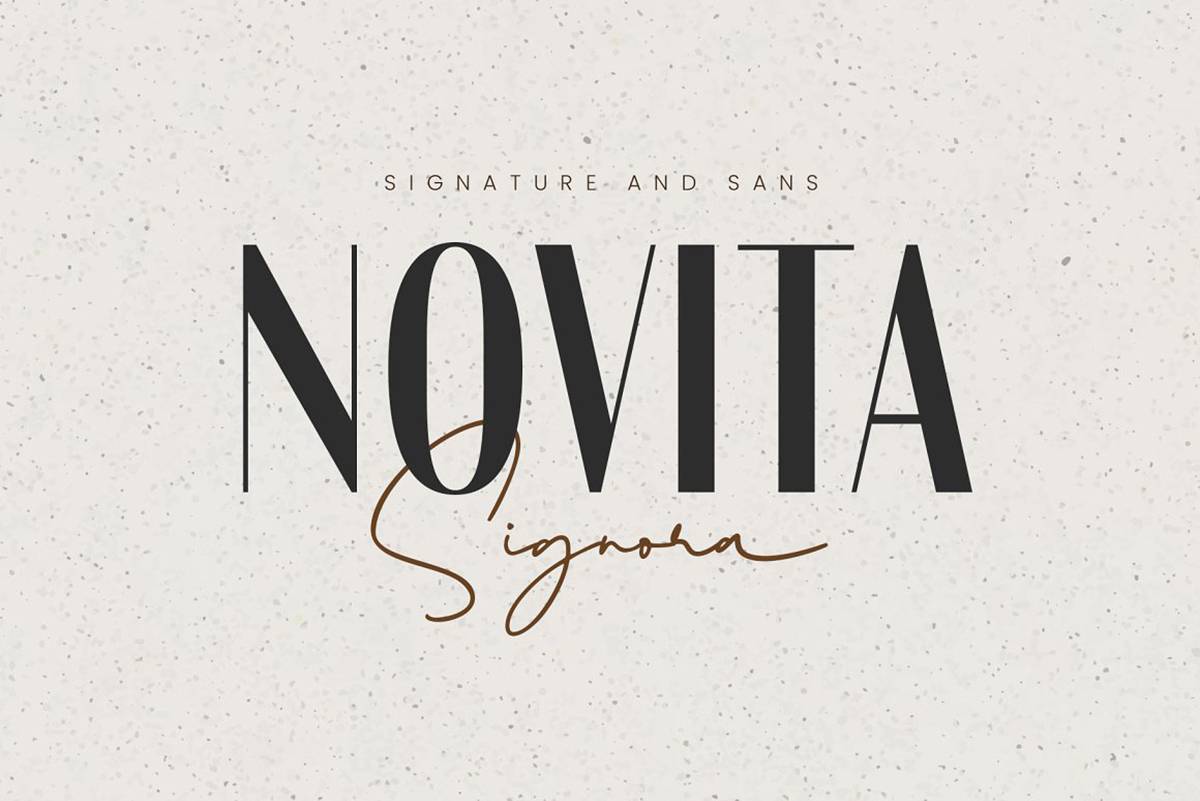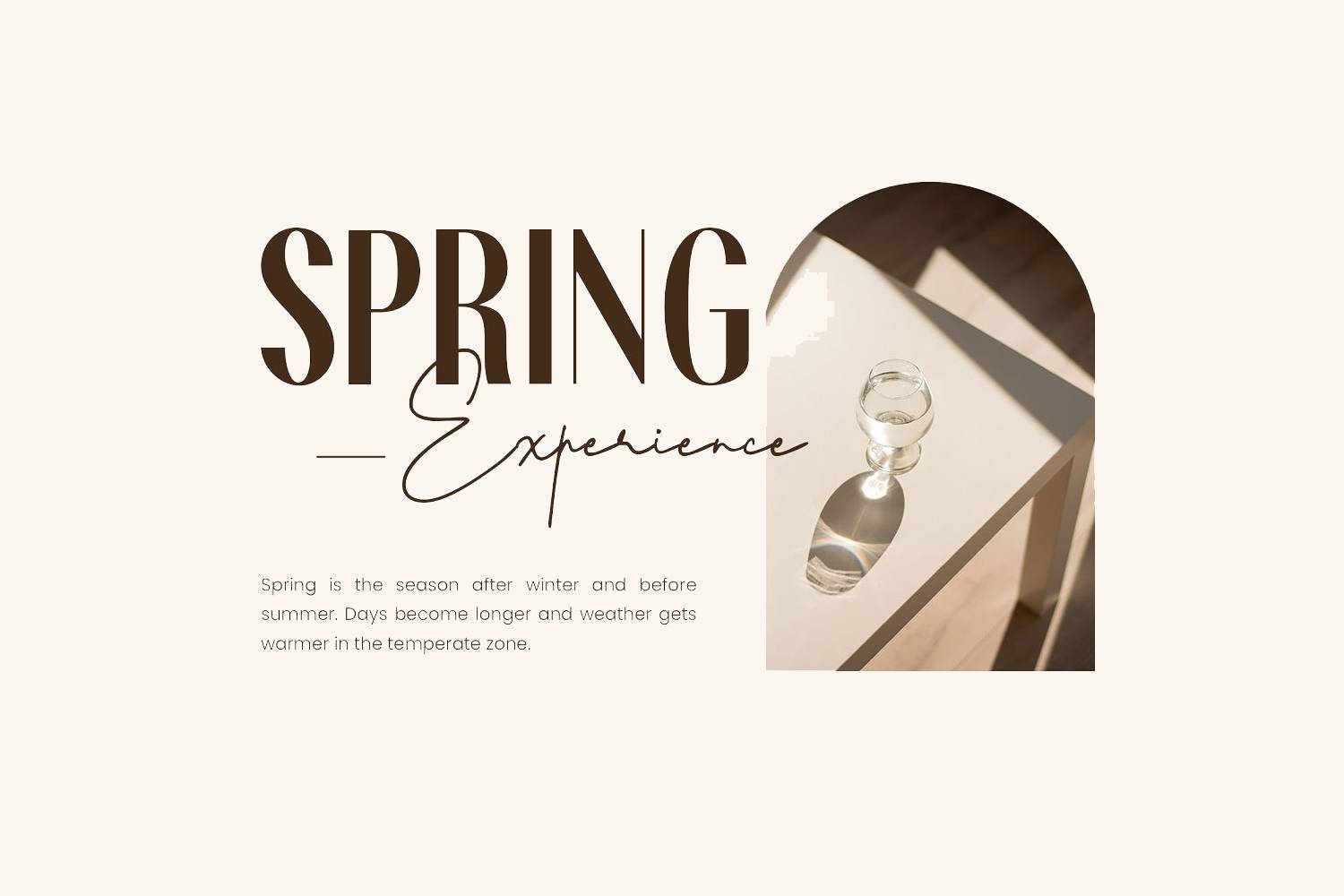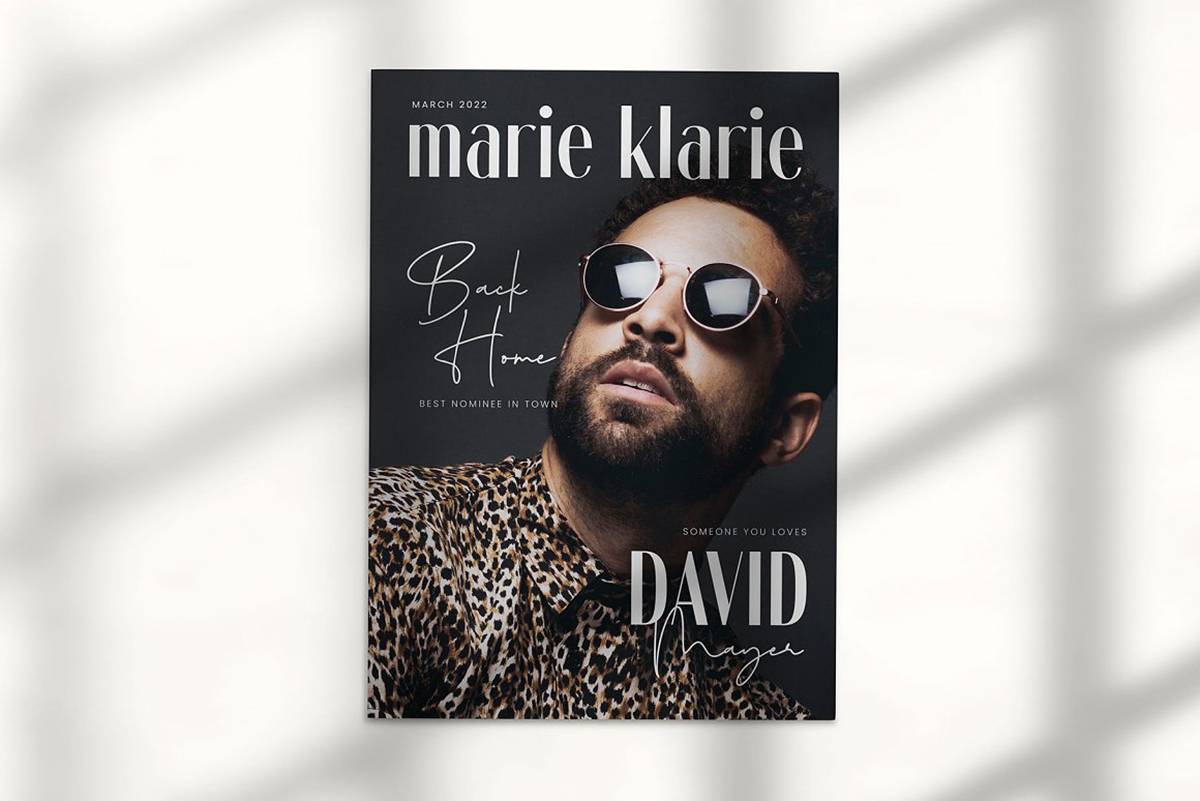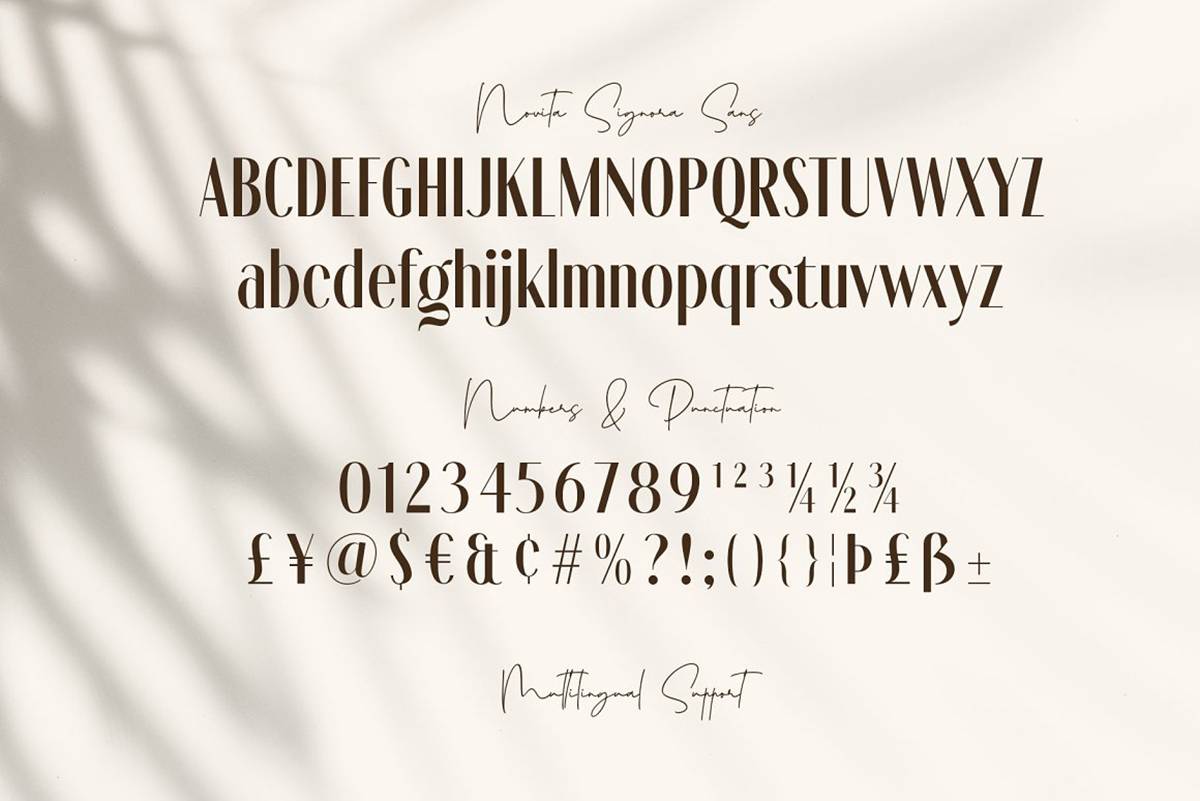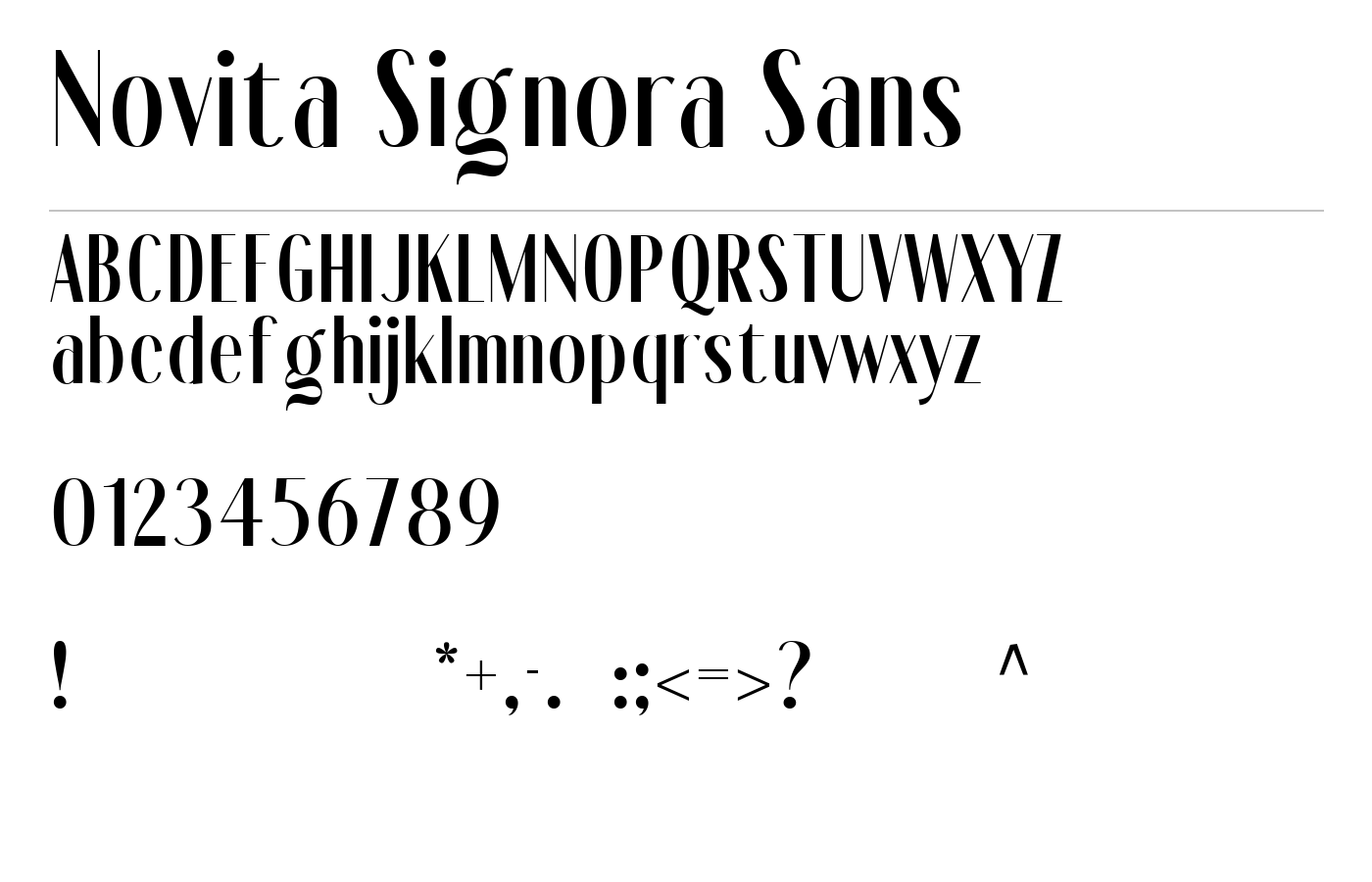
Novita Signora Sans is a stylish and elegant serif font with a modern twist, featuring high contrast between thick and thin strokes and tall, narrow letterforms. Its unique details, like the distinctive tail on the Q and the double-story g with a flourish, give it a sophisticated and refined personality that works beautifully for luxury branding, fashion, and editorial headlines. This font’s chic and graceful look makes it perfect for projects seeking a blend of classic elegance and contemporary flair.
Novita Signora Font
About Novita Signora Font
| Font family | Novita Signora Font |